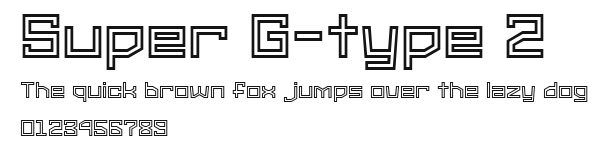
• Font Name: Super G-type 2
• Full Font Name: Super G-type 2
About Super G-type 2.ttf
Super G-type 2.ttf is a modern, elegant sans-serif font designed for ultimate readability and visual harmony. Perfect for branding, headlines, web design, and print materials.